Ligature of Art & Design or Why typography?
Typography is (perhaps less familiar to some) a part of visual design. It deals with writing, its shapes and, not only what, but mainly how writing communicates.
I have been working on type design since 2007, for 14 long years, since my studies at the Academy of Fine Arts and Design. Although I started relatively “unplanned”, the love for it was and is strong from the first moment. During that time, I learned and understood a lot about how typeface works and how it doesn’t, why it is important, how much it can affect the final look of the communication message and the overall atmosphere of the visual.
Why should you be interested in typography?
The font is an integral part of the communication of every single brand. Through writing, we communicate those things that we do not know or are unable to say out loud at the moment, or we simply want to communicate them in written form. Font is not just text, font can be a powerful graphic element that complements communication through its shape, size, and composition. As you may know, the human mind perceives many things subconsciously, and this is also the case with visual art. Think, for example, of brands like Coca-Cola or Google. What do you see? You can see letterings that perfectly supports what these brands offer. Coca-Cola – the traditional taste of America, which remains the same throughout the ages + swashes, supporting the feeling of freedom and Google – technologies that are supposed to make our world more colorful and beautiful, and all this is wrapped in a serious sans font.
Each font is unique, just like each of us
Every person has a unique personality and so it is with a brand. Brands are like personalities created by visual and communication identity. The need to stand out is natural, and the font is like one piece in the brand puzzle that helps you do that. Shape, size, styles, various stylistic adjustments – thanks to this, the brand will stand out from the others with its own customized font. Although “custom font” is not yet as widespread as, for example, “custom logo or brand color”, the world's most famous brands have their own fonts and they know why.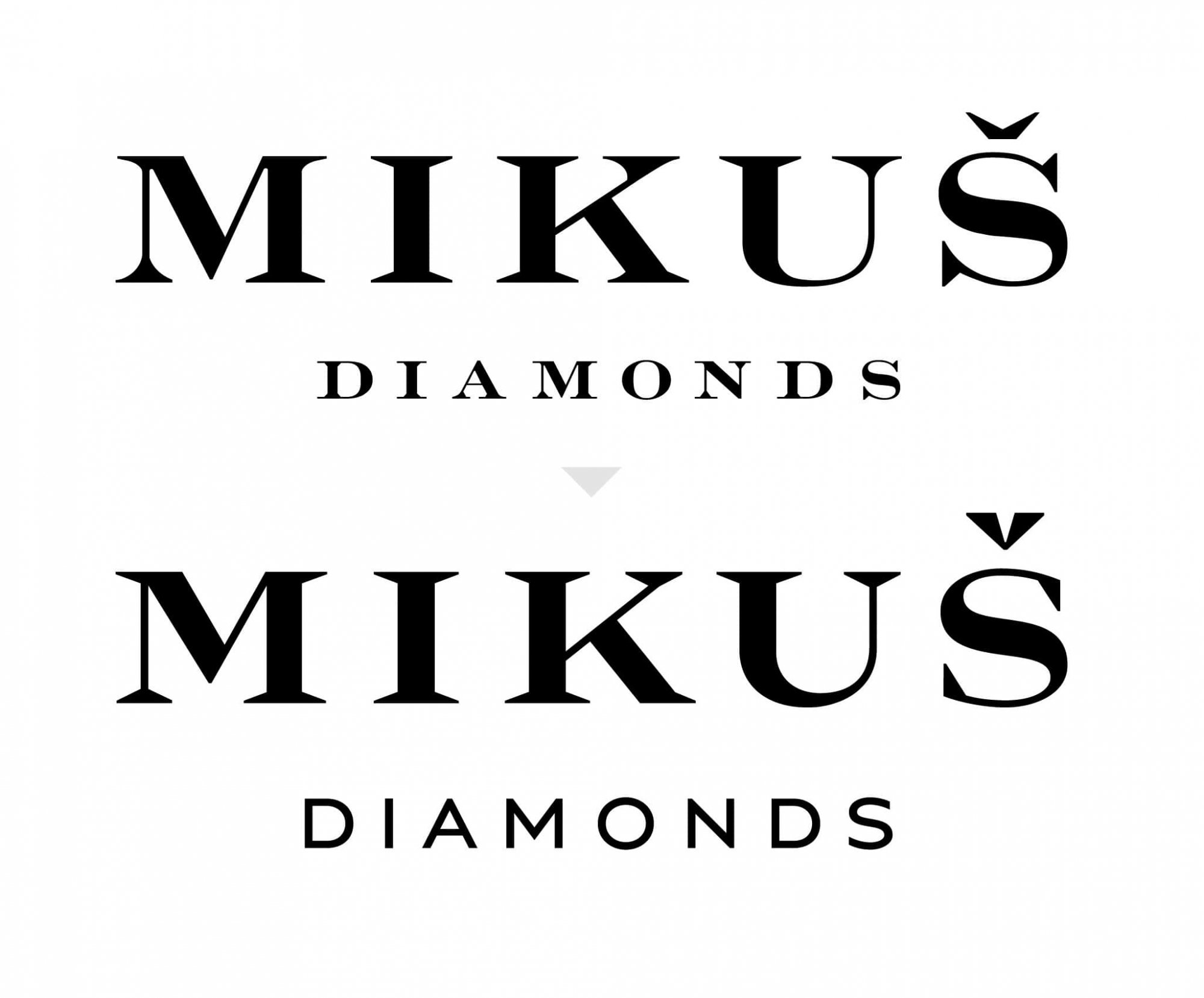
Modification of the Engravers font according to the specific needs of the brand